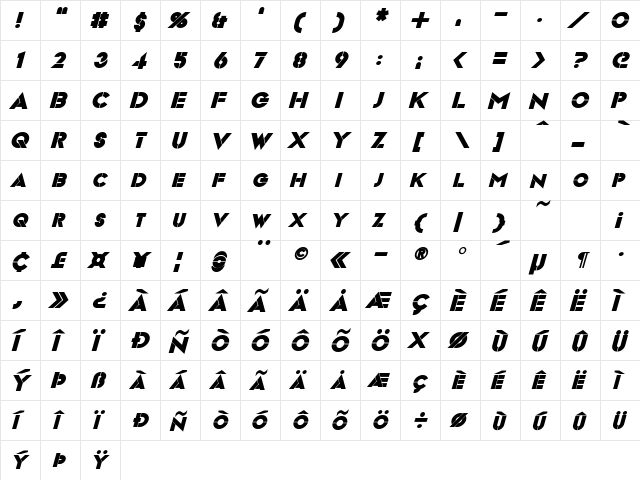
Videopac Bold Italic
| Foundry | Neale Davidson |
| Designer | Neale Davidson |
Design Context for Videopac Typeface
Videopac takes a measured approach to typography — its balanced proportions and neutral character make it a reliable workhorse for both digital and print work. The slanted form adds forward momentum and visual energy. Its bold stroke weight gives it real presence on the page.
Pro Tip: Try Videopac for annotation and caption copy alongside an upright companion — the contrast in angle creates a dynamic but ordered typographic system.